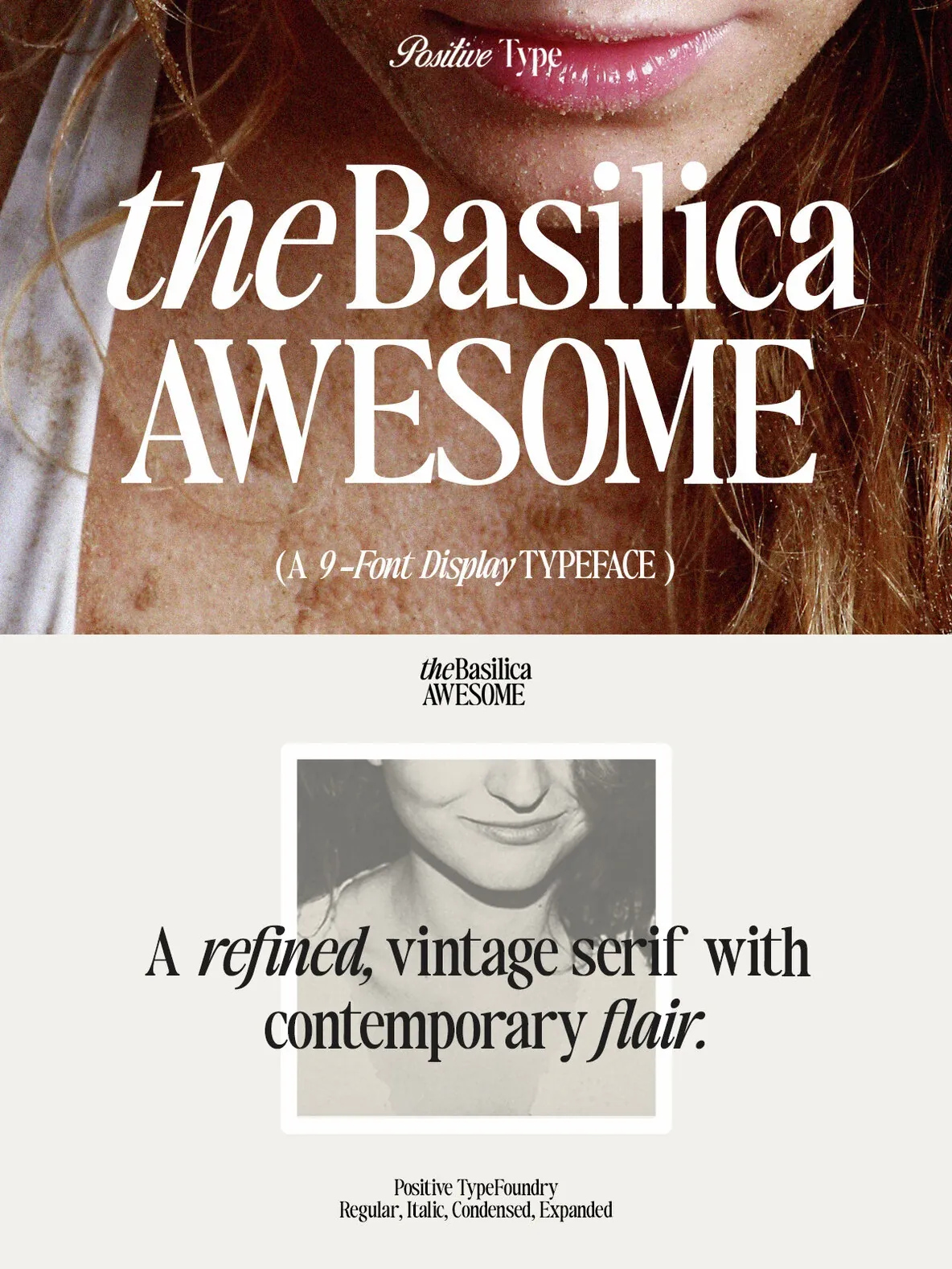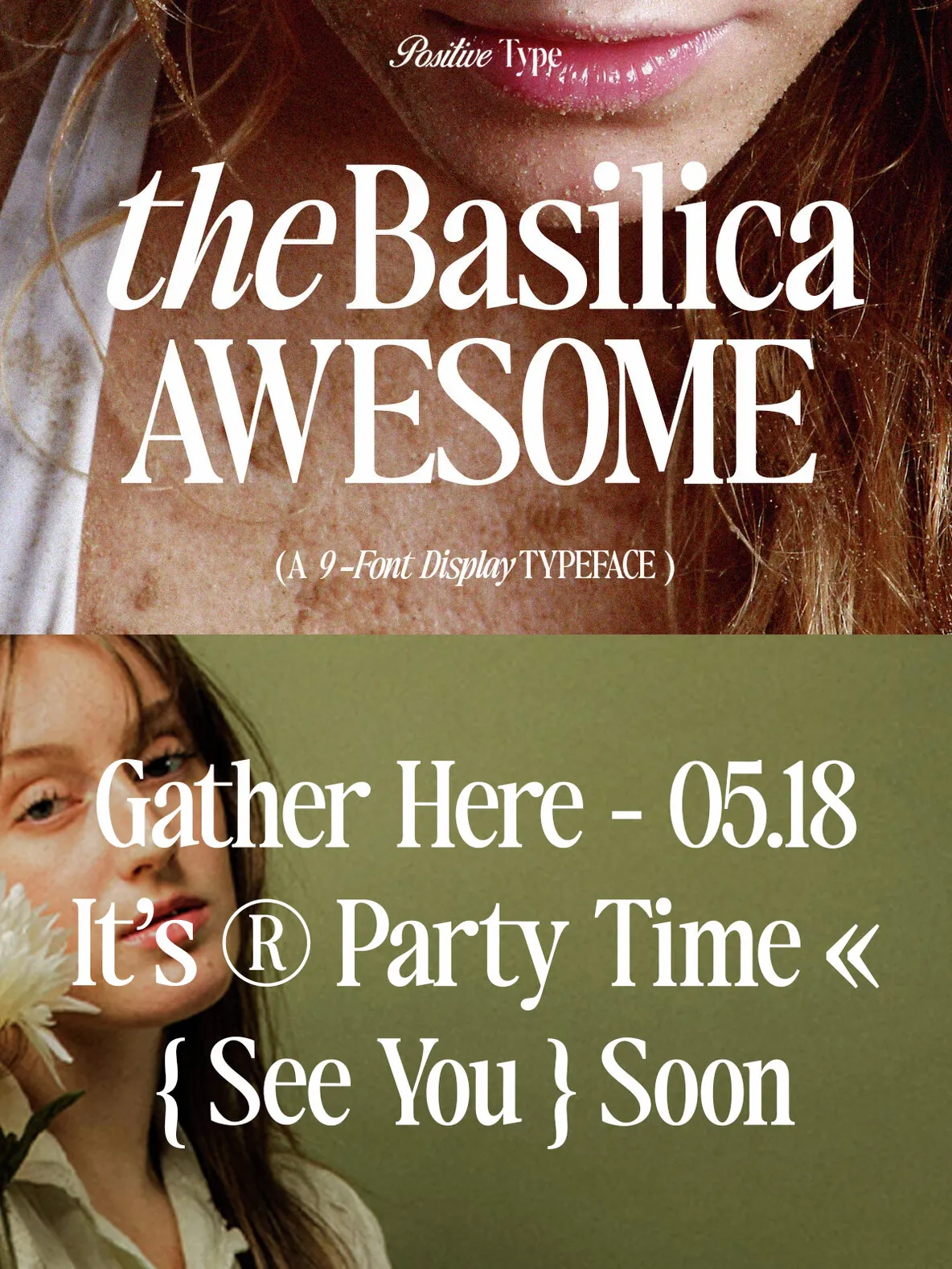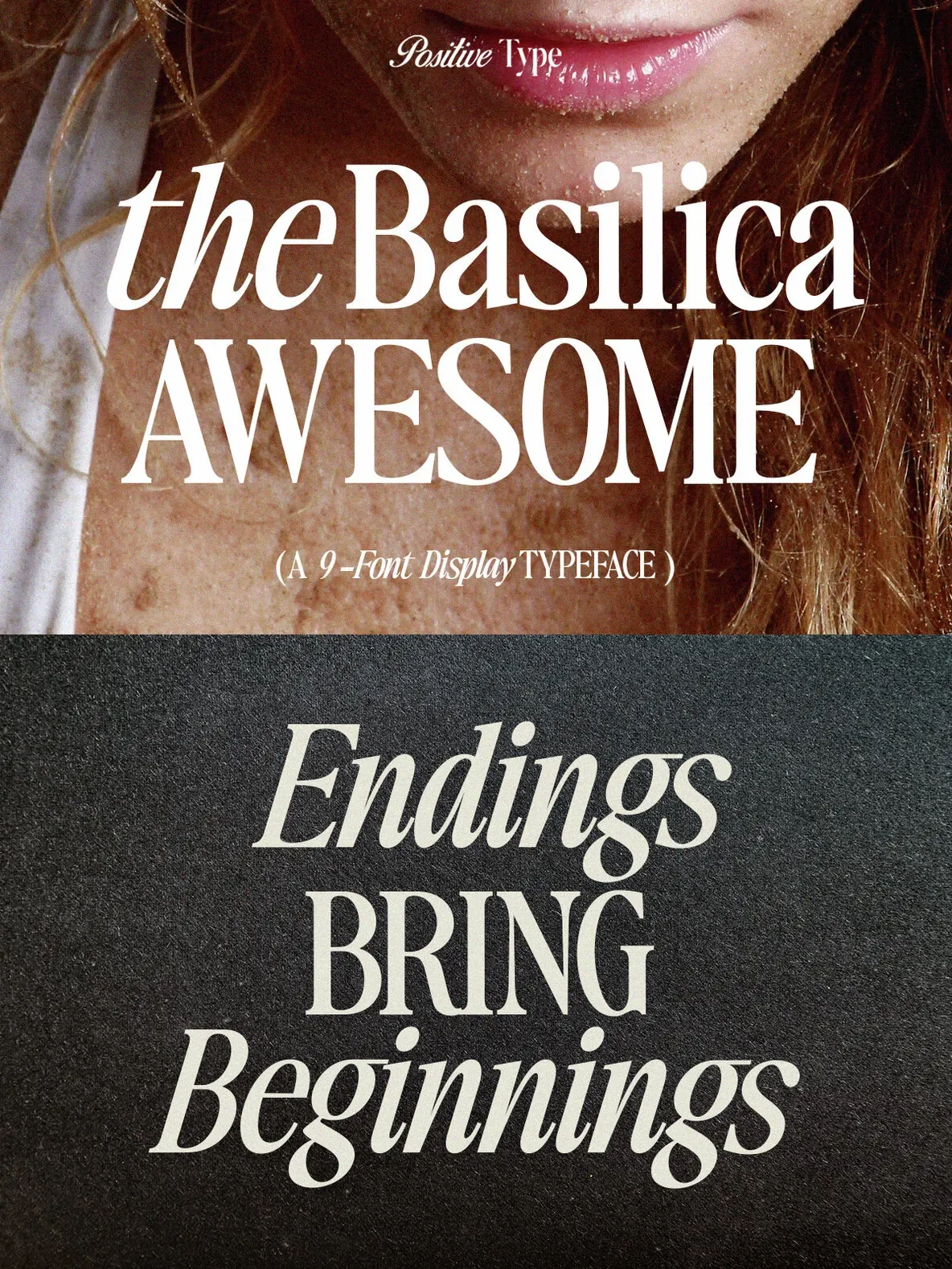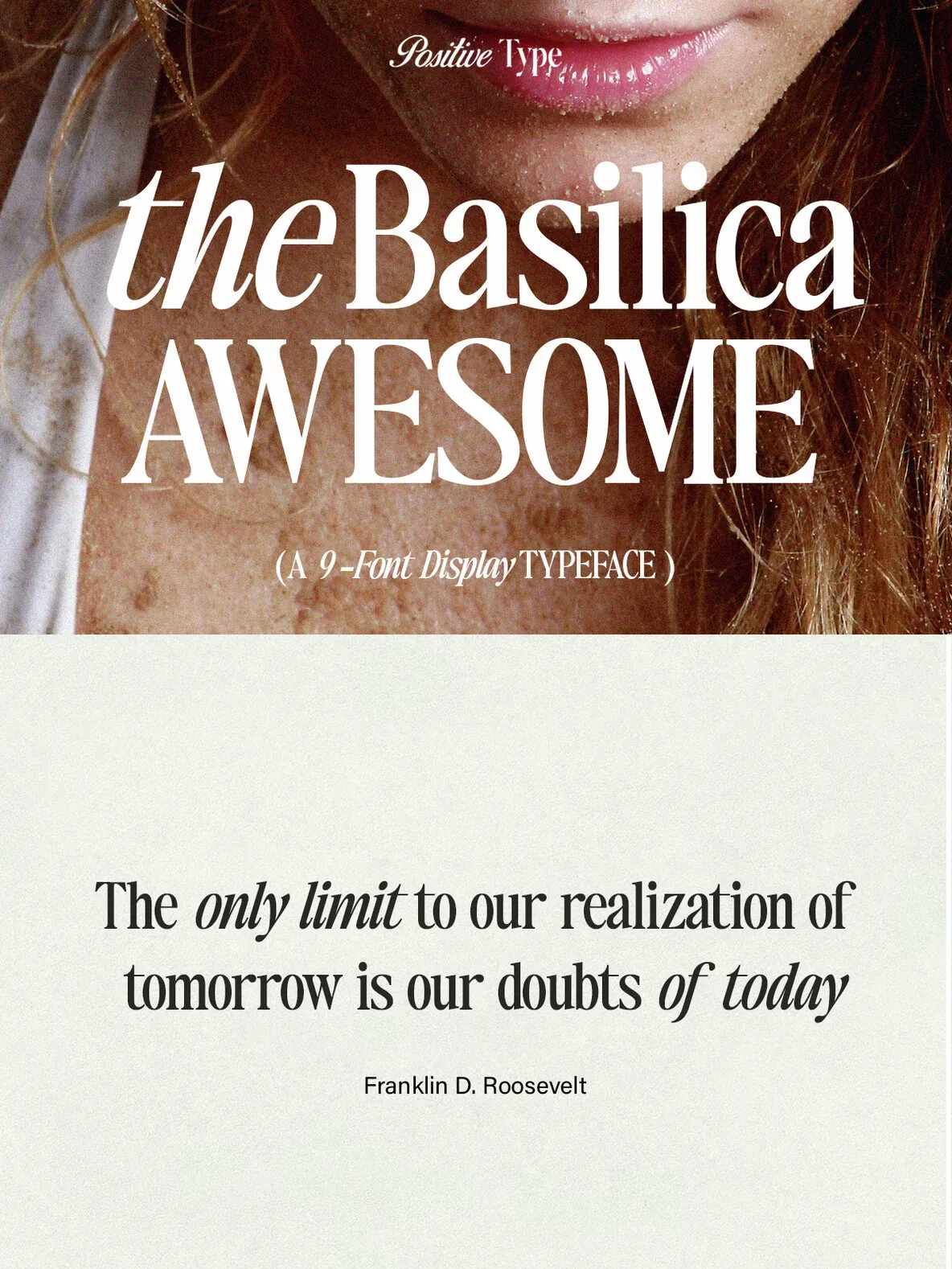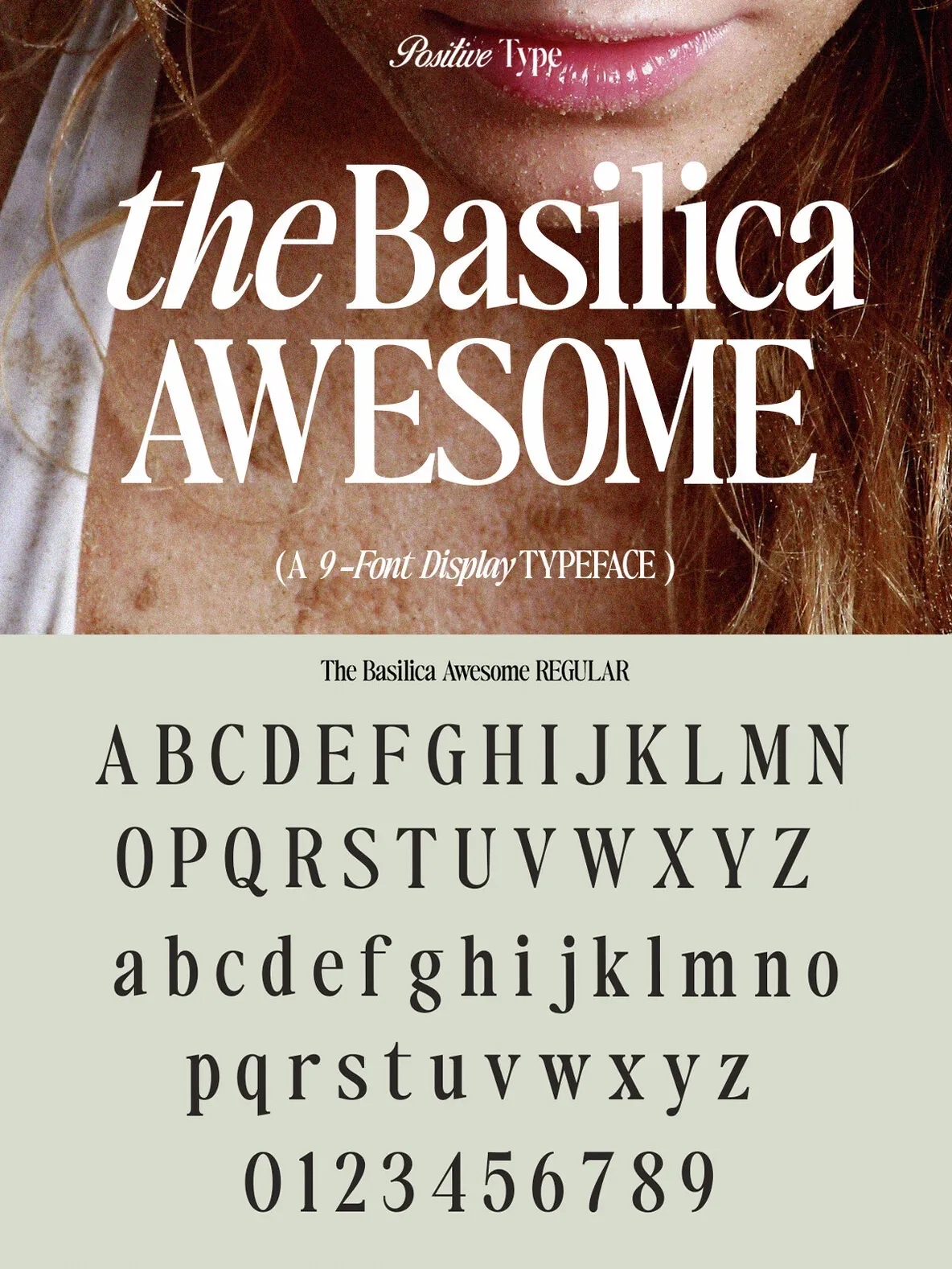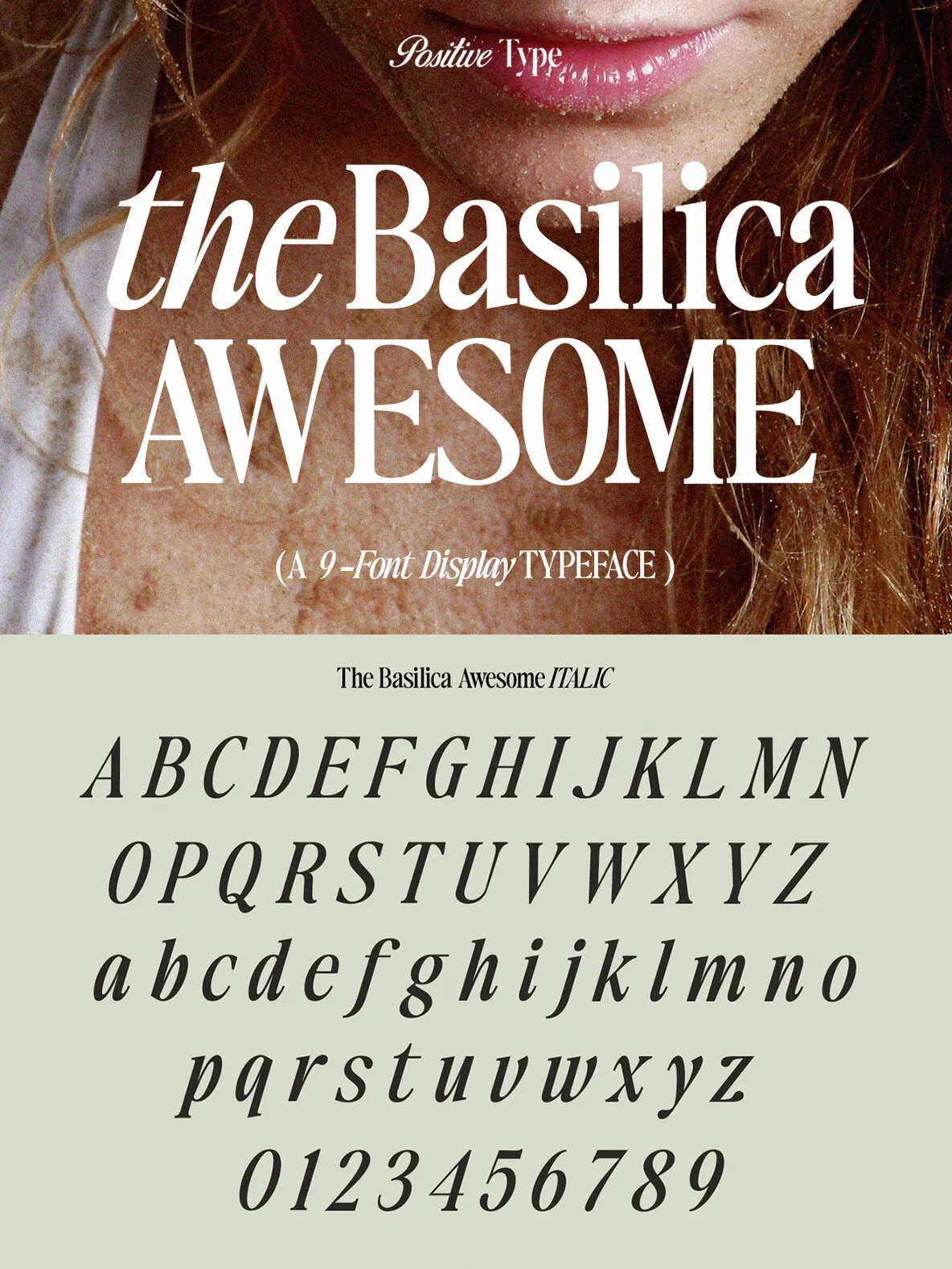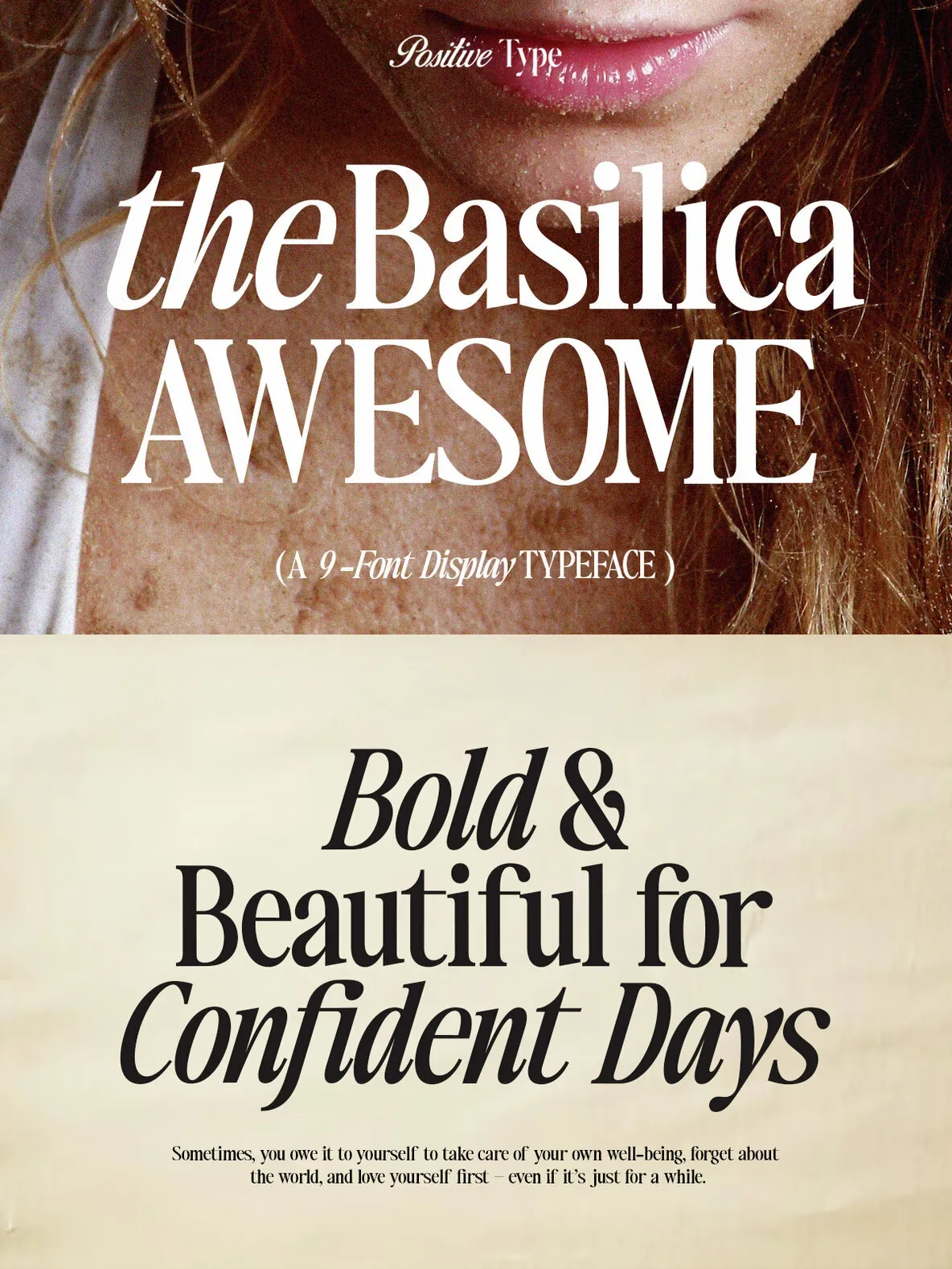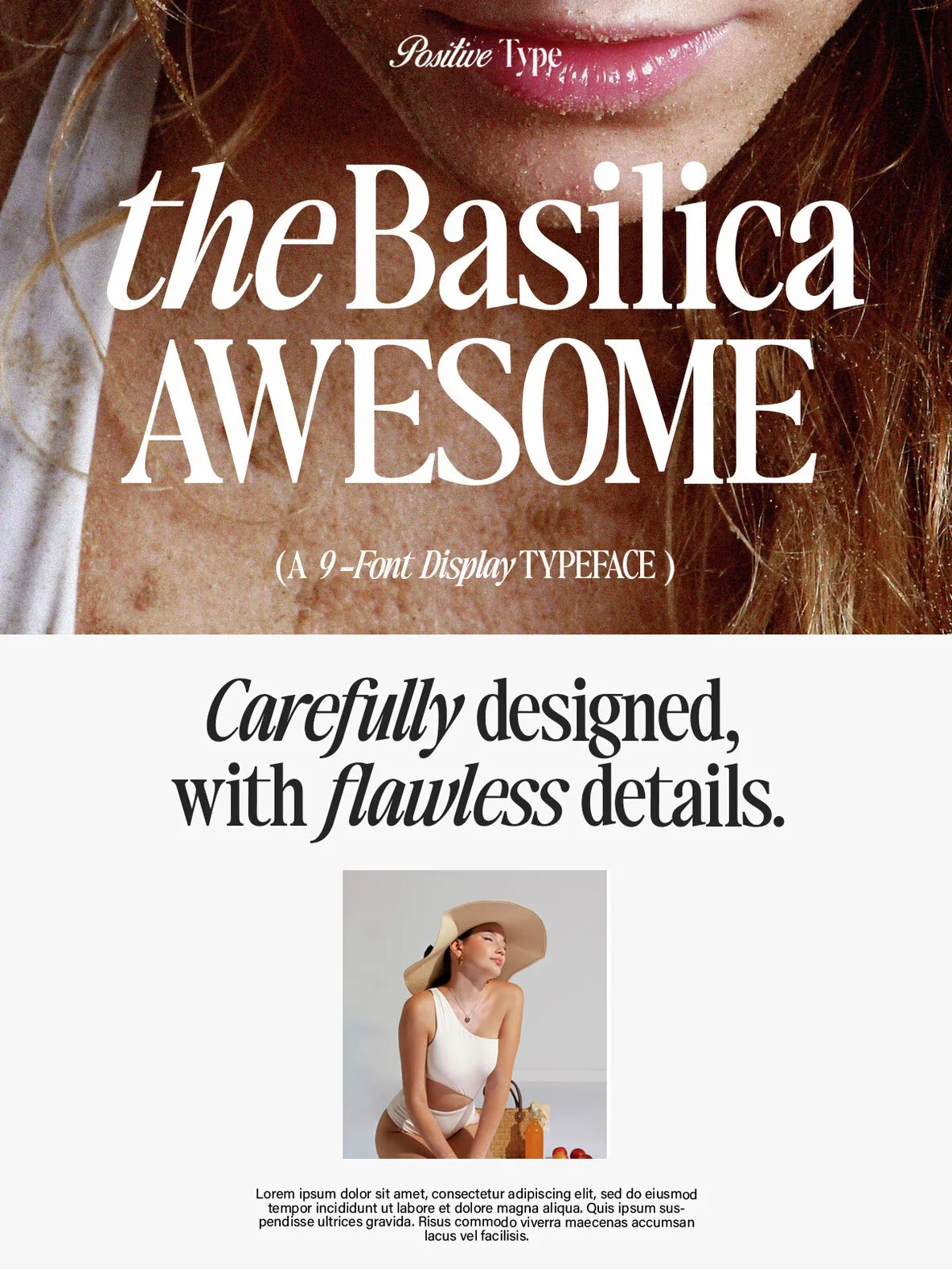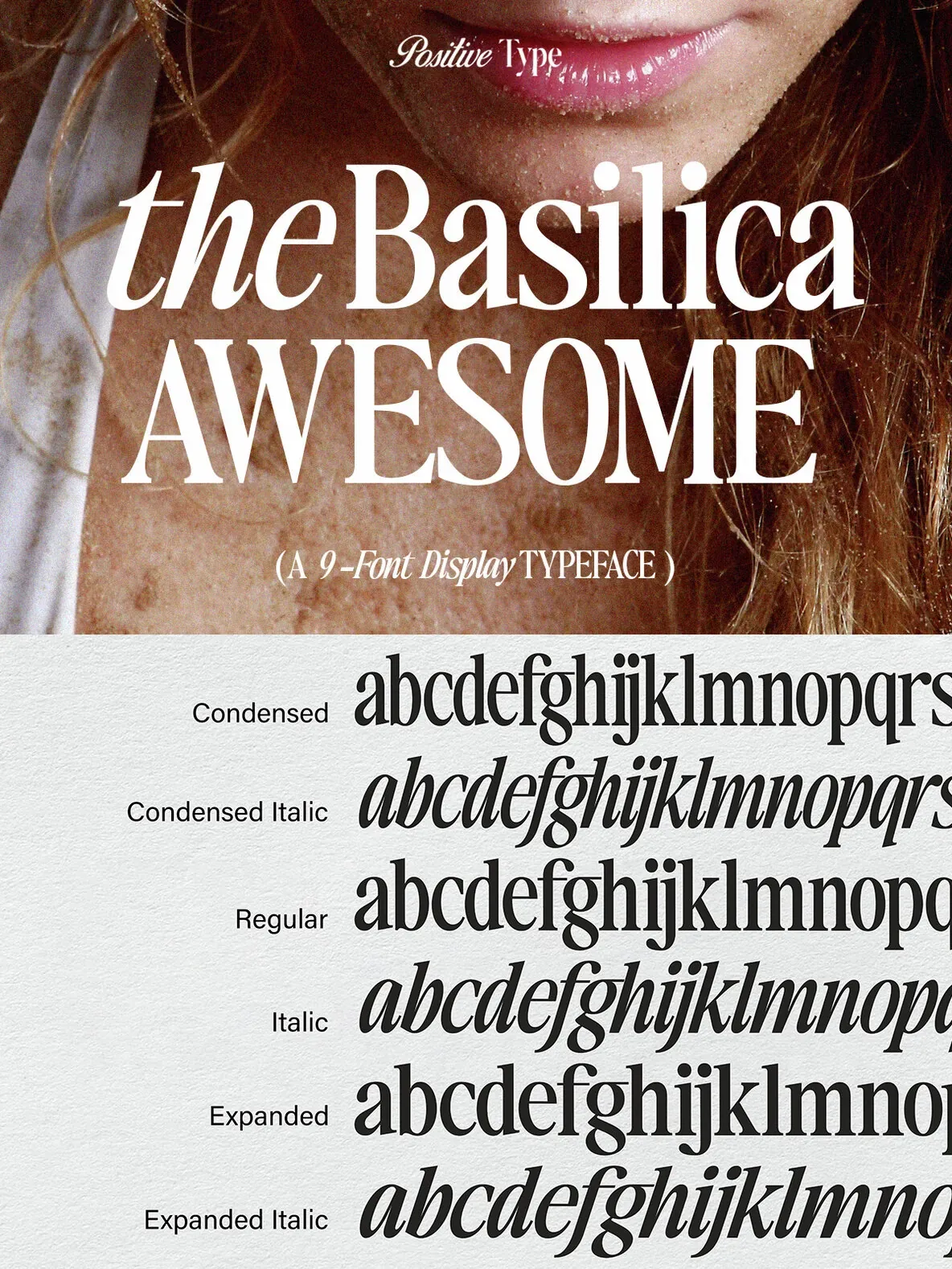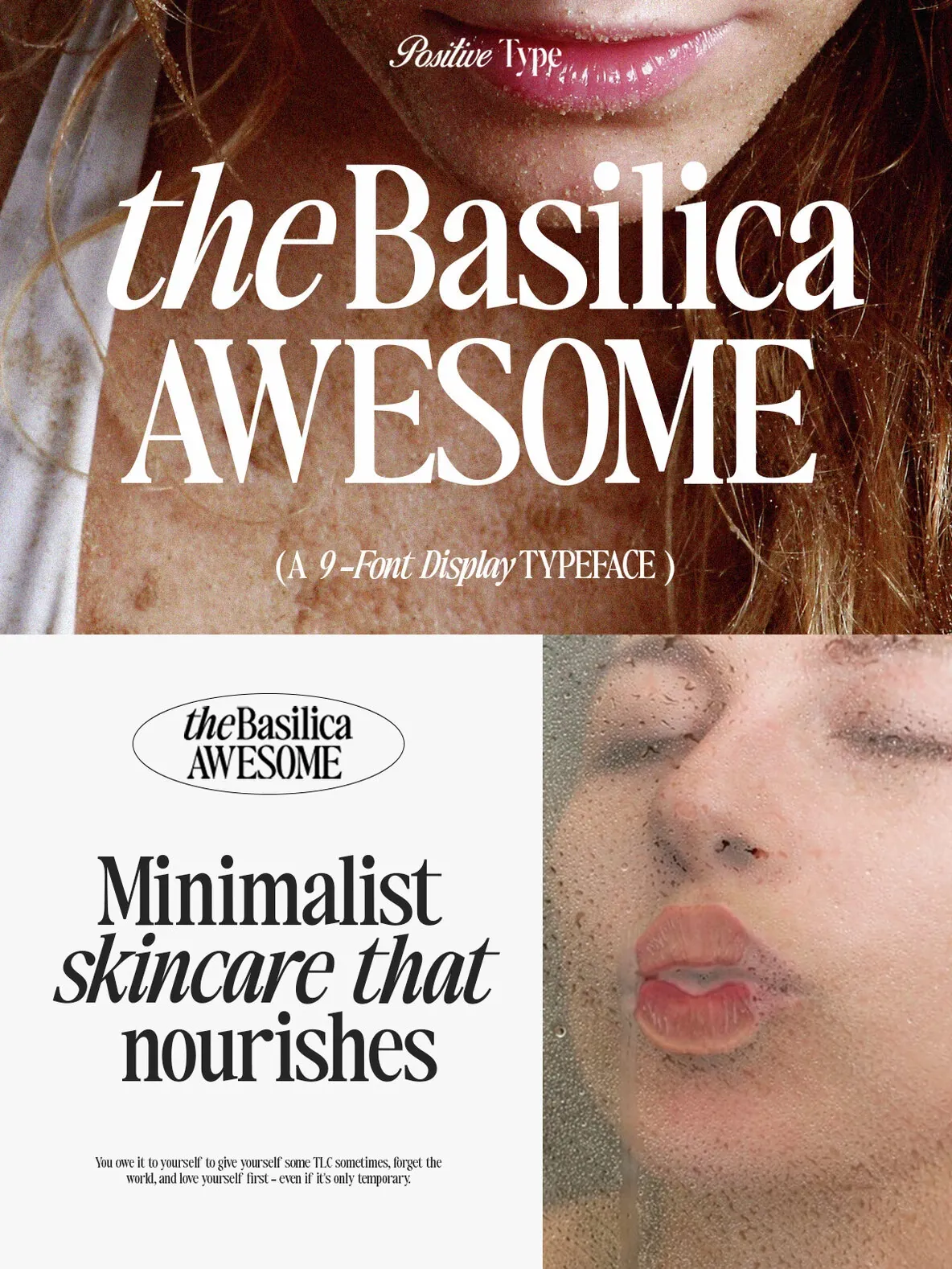
Basilica Awesome: Modern Vintage Serif Font
The Basilica Awesome is a modern vintage serif font designed with a classy style. It offers a range of OpenType features, allowing users to select from various uppercase and lowercase variations for a luxurious and elegant appearance.